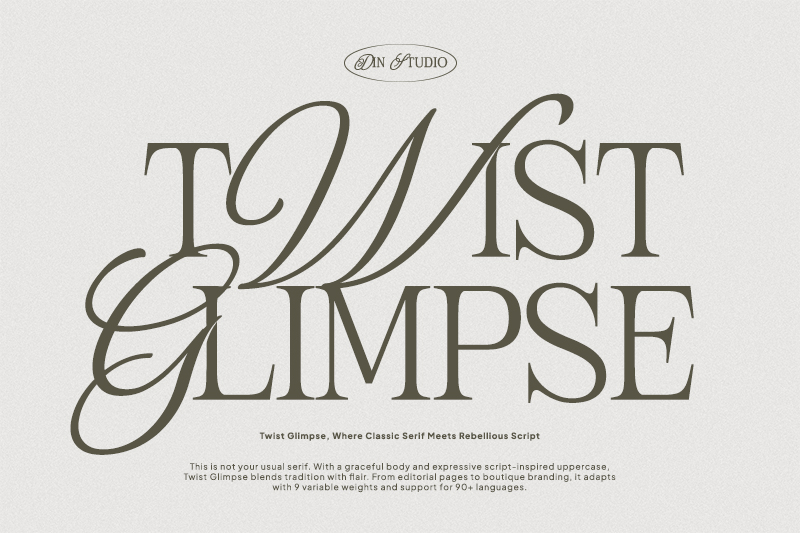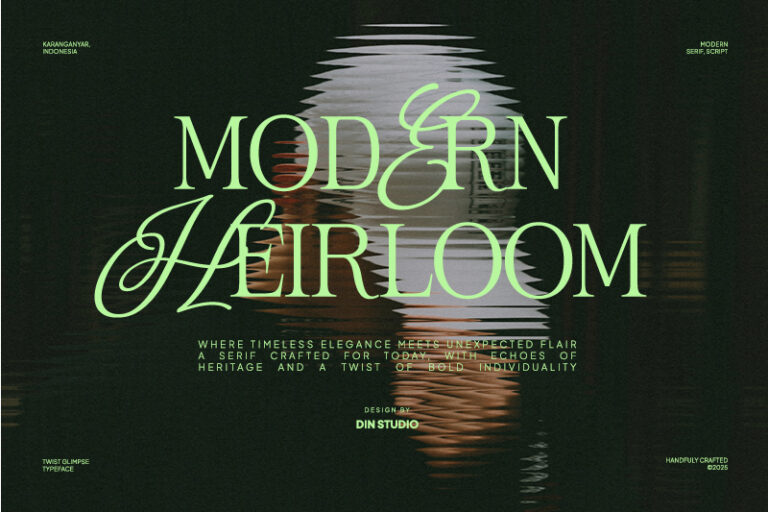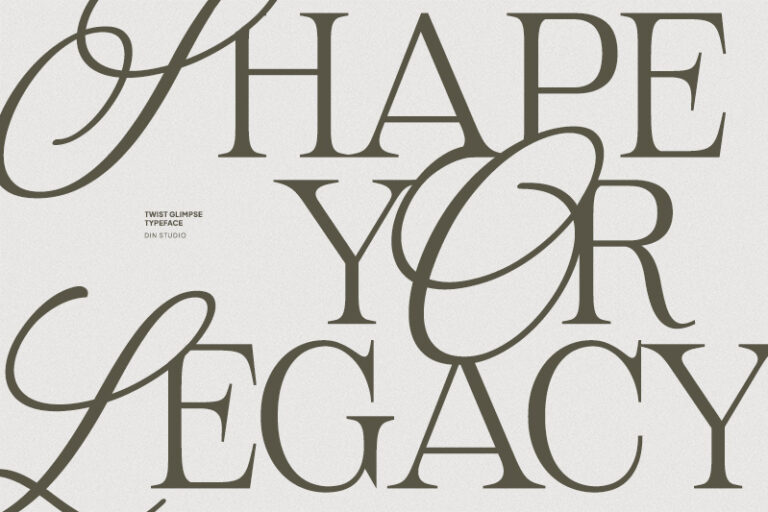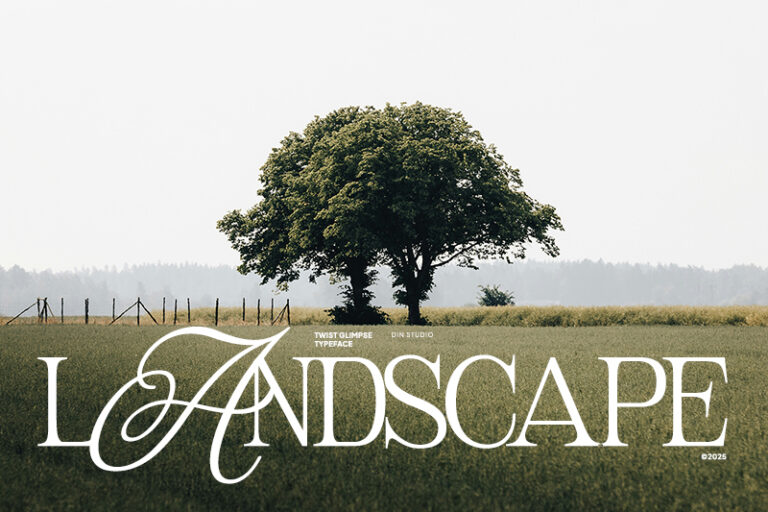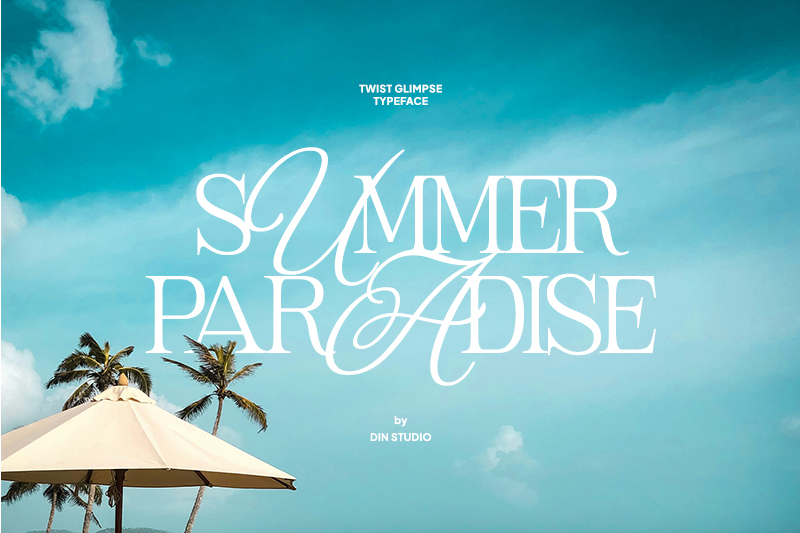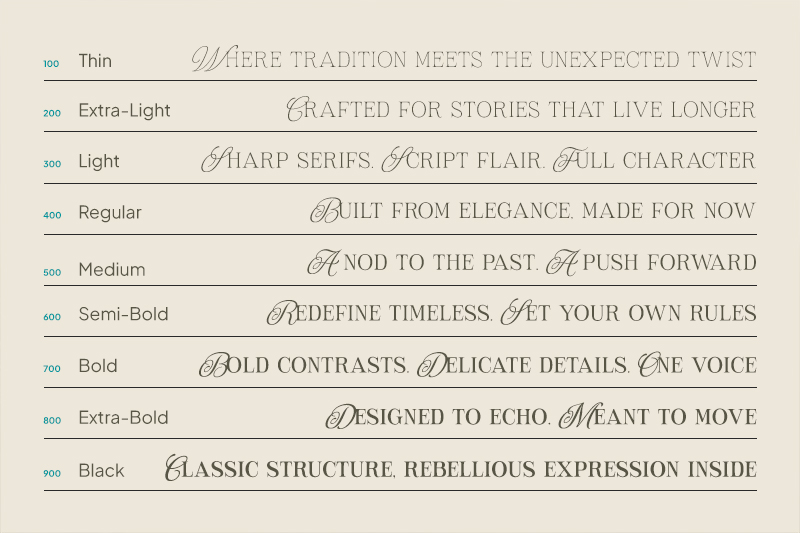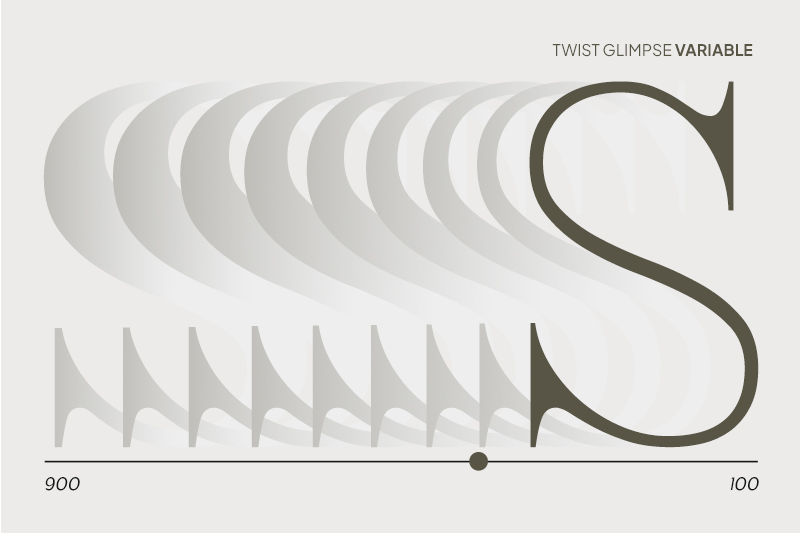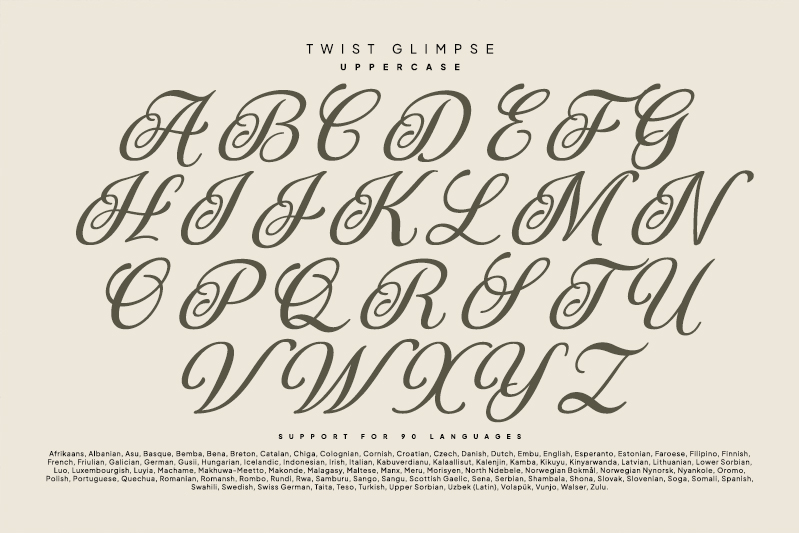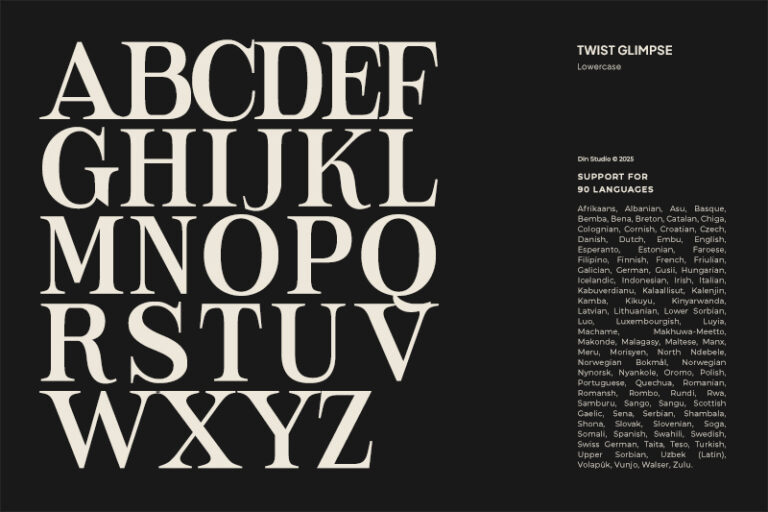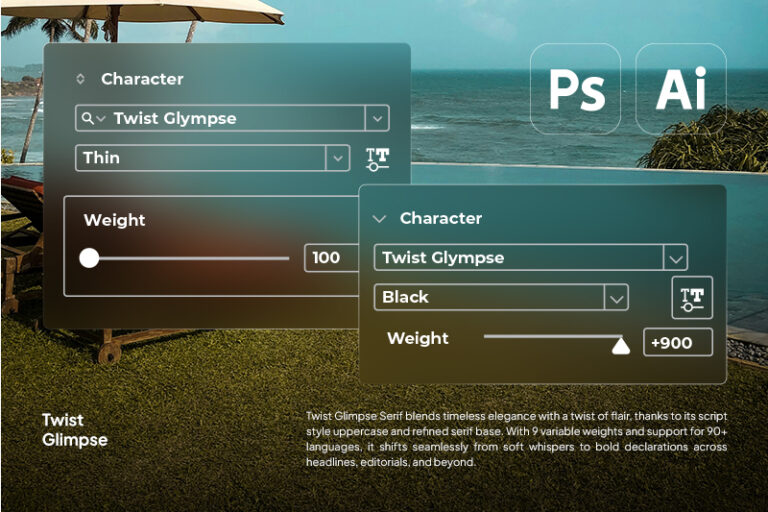
Twist Glimpse – Elegant Combination Font Serif and Script Family
Twist Glimpse is a sophisticated font duo that beautifully blends the classic strength of a serif typeface with the graceful flow of script. Designed to embody timeless elegance and modern versatility, this duo offers a perfect balance between structure and style—making it ideal for designers who want to create luxurious, polished, and memorable visuals. This font becomes more special with 9 weight options. In addition, enjoy the features here.
Twist Glimpse fits in branding, packaging, quotes, invitations, logos, posters, and many more designs. Find out more ways to use this font by taking a look at the font preview.